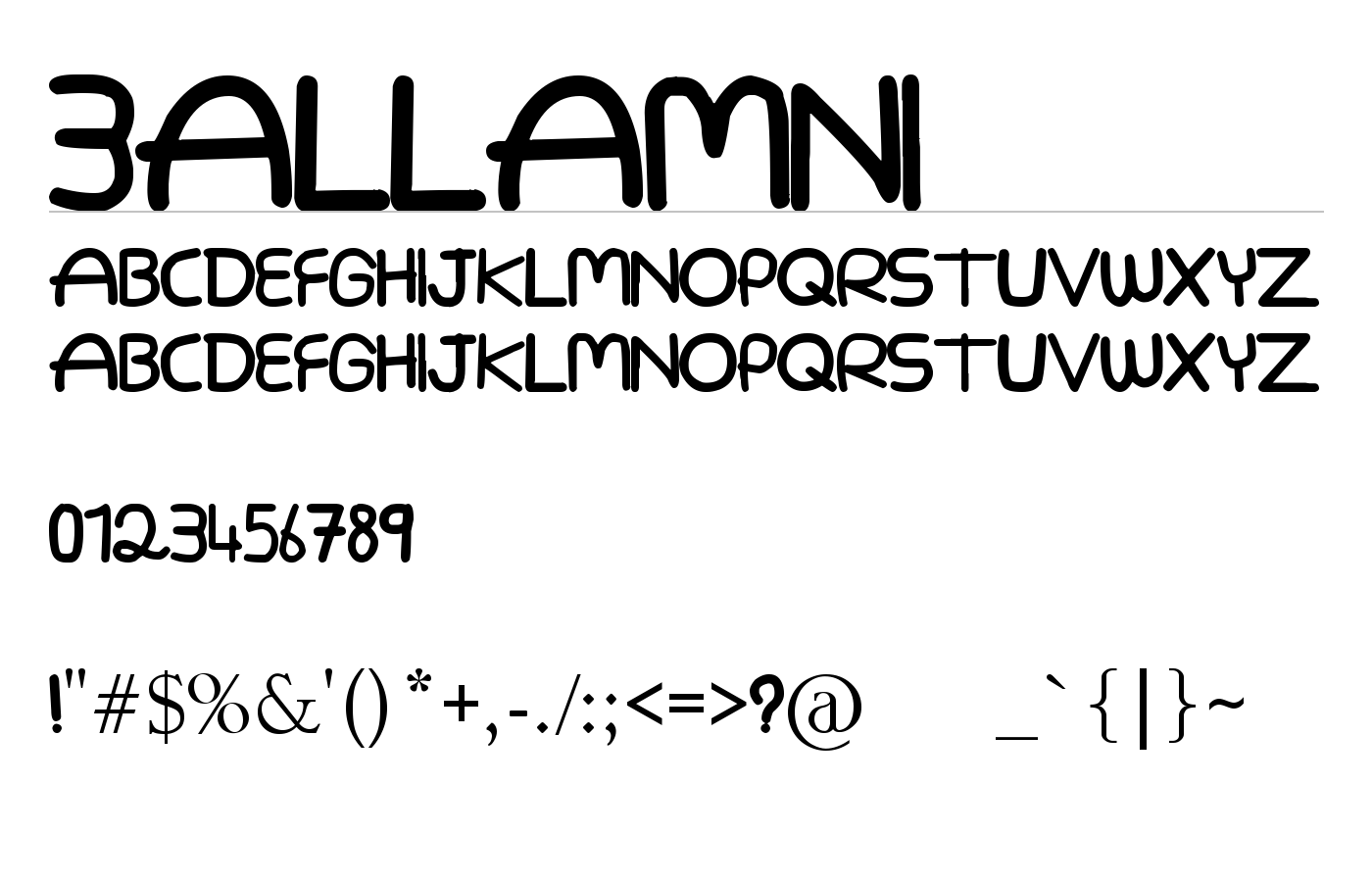
3allamni Font is a playful, casual sans serif with rounded, hand-drawn letterforms that convey friendliness and approachability. Its lightweight strokes and upright, slightly condensed shapes give it a lively yet clean personality, ideal for informal branding, children’s materials, or creative projects that seek a warm and informal tone. This font works well in headlines and short text where a fun and engaging vibe is desired.
3allamni Font
About 3allamni Font